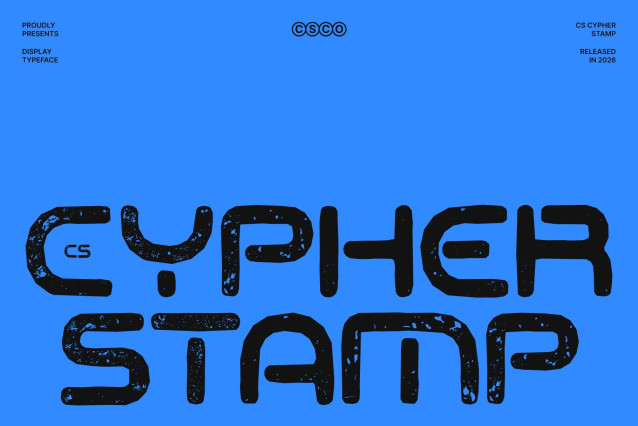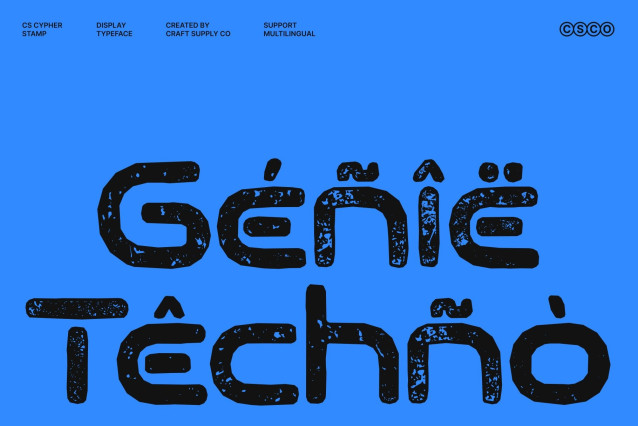
CS Cypher Stamp Font
CS Cypher Stamp – Futuristic Font: Where Geometry Meets Innovation
Futuristic Display Font with Rounded Geometric Style
This is a modern display typeface that merges geometric precision with soft, rounded edges to create a sleek futuristic look. The stamp effect introduces a subtle textured finish, adding a tactile and slightly retro nuance that contrasts beautifully with its forward-thinking design.
Sleek Geometry with a Contemporary Touch
Built from clean, simple forms, this font balances sharp structure with smooth curves. The stamped texture gives the geometric shapes more depth and personality, transforming the polished forms into something more expressive and visually distinctive while maintaining a contemporary aesthetic.